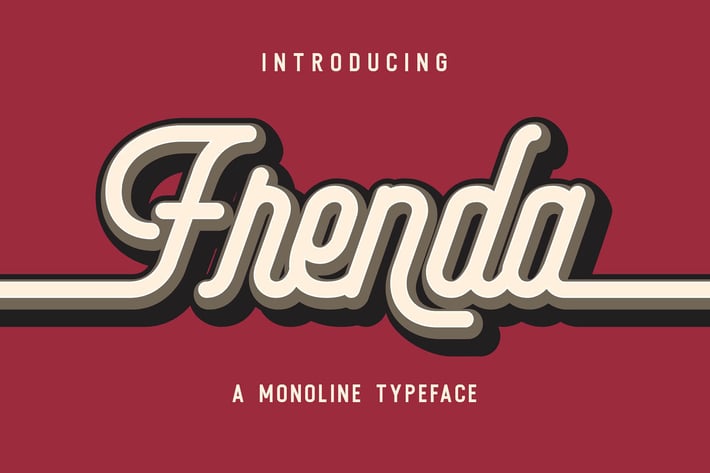
Frenda - a Monoline Typeface
Introducing of our new product the name is Frenda a Monoline Typeface. Frenda inspired by monoline style this font is a fun theme very good for, book cover, poster, quote, logotype and etc